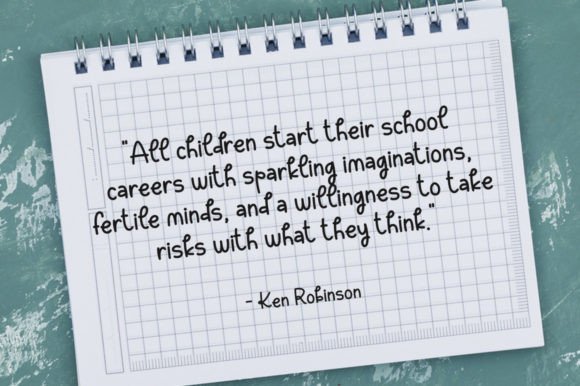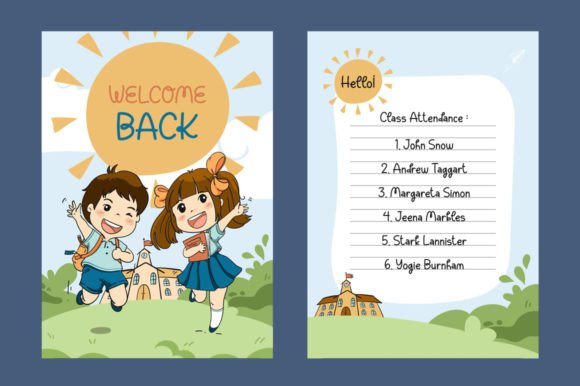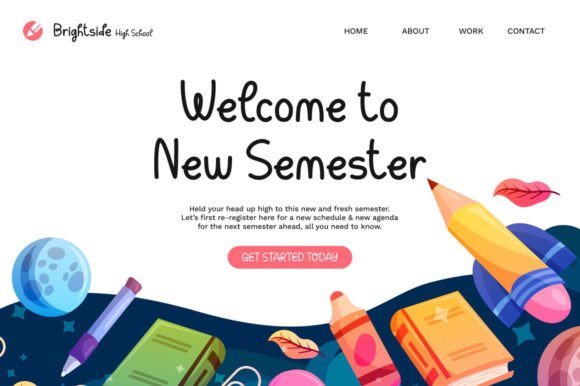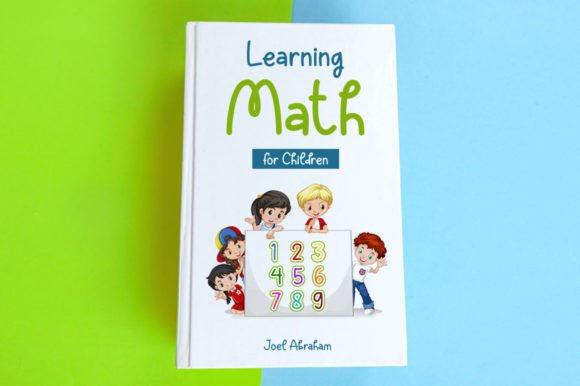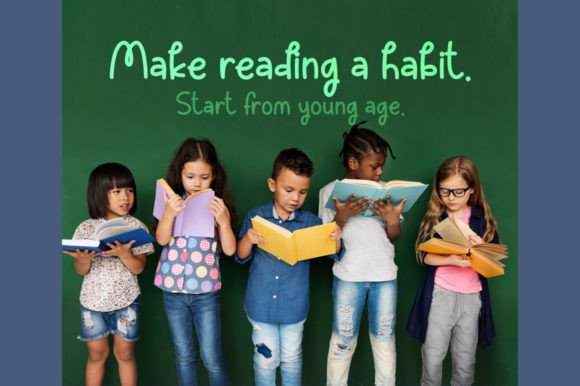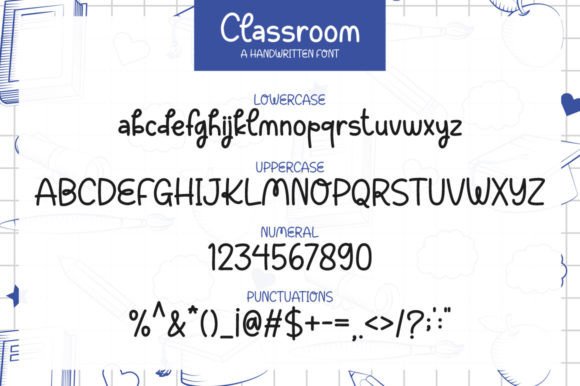
Introducing Classroom Font: The Perfect Addition to Your Design Arsenal
Are you a designer or crafter looking for a font that can add a touch of romance and personality to your work? Look no further than Classroom Font, a cute and casual handwritten font that’s perfect for a variety of design projects. In this article, we’ll take a closer look at Classroom Font, its features, and how you can use it to elevate your designs.
What is Classroom Font?
Classroom Font is a beautiful, handwritten font that’s designed to bring a sense of joy and whimsy to your designs. With its dainty and delicate strokes, this font is perfect for creating romantic and personalized designs that will capture the attention of your audience. Whether you’re designing wedding invitations, greeting cards, or any other type of project that requires a touch of elegance, Classroom Font is an excellent choice.
Key Features of Classroom Font
So, what makes Classroom Font so special? Here are some of its key features:
• Cute and Casual: Classroom Font has a playful, casual vibe that’s perfect for designs that require a personal touch.
• Handwritten: This font has a beautiful, handwritten feel that’s sure to add a touch of warmth and personality to your designs.
• Dainty and Joyful: The delicate strokes and joyful feel of Classroom Font make it perfect for creating designs that are both elegant and playful.
• Romantic: With its whimsical and romantic feel, Classroom Font is ideal for designs that require a touch of love and affection.
Use Cases for Classroom Font
So, how can you use Classroom Font in your designs? Here are some ideas to get you started:
• Wedding Invitations: Classroom Font is perfect for creating beautiful, romantic wedding invitations that will set the tone for your special day.
• Greeting Cards: Whether you’re designing birthday cards, thank-you cards, or holiday cards, Classroom Font is a great choice.
• Stationery: Add a touch of elegance to your stationery with Classroom Font, perfect for creating custom notebooks, journals, and more.
• Branding: Classroom Font can also be used in branding projects, such as logos, packaging, and marketing materials.
Tips for Using Classroom Font
Here are some tips for getting the most out of Classroom Font:
• Pair it with Other Fonts: Classroom Font pairs well with other fonts, such as serif and sans-serif fonts. Experiment with different combinations to find the perfect look for your design.
• Use it for Headings: Classroom Font is perfect for headings and titles, adding a touch of elegance and personality to your designs.
• Experiment with Colors: Classroom Font looks great in a variety of colors, from soft pastels to bold and bright hues. Experiment with different colors to find the perfect look for your design.
Font Name Classroom Font
Author Nirmala Creative
Classroom Font is a beautiful, handwritten font that’s perfect for designers and crafters looking to add a touch of romance and personality to their work. With its dainty and joyful feel, this font is ideal for a variety of design projects, from wedding invitations to greeting cards and more. Whether you’re a seasoned designer or just starting out, Classroom Font is a great addition to your design arsenal.